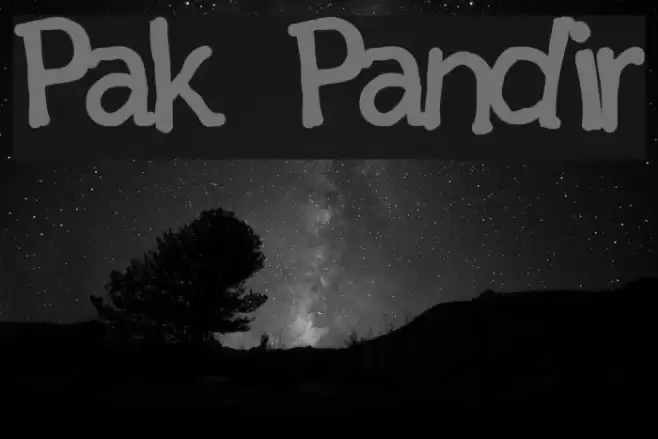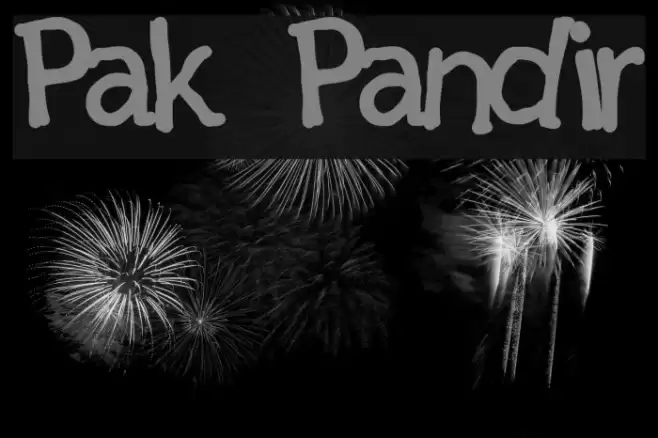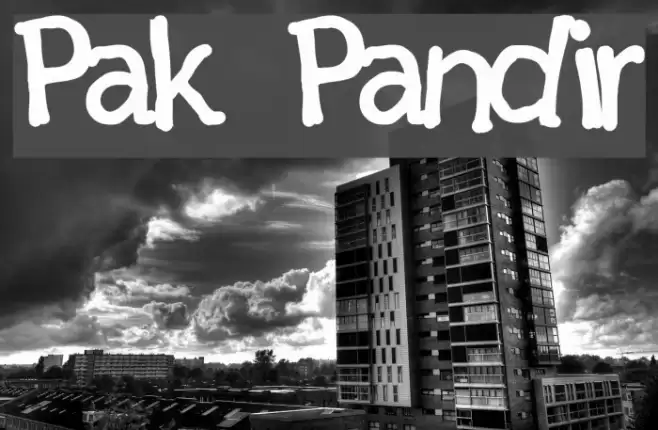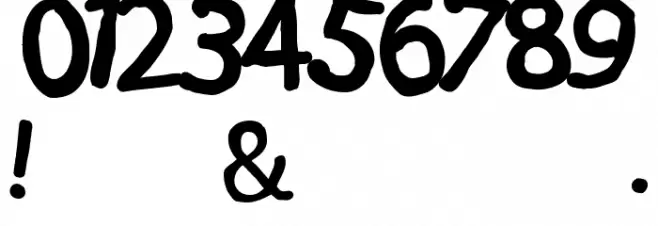
Pak Pandir Font
Pak Pandir Description
This font features a playful and informal style with a hand-drawn appearance. The letters have a slightly irregular shape, giving them a whimsical and friendly feel. The strokes are bold and rounded, contributing to a casual and approachable aesthetic. The uppercase and lowercase letters maintain a consistent style, with the uppercase being slightly larger and more pronounced. The numbers and special characters follow the same design principles, ensuring uniformity across the font. This font is ideal for projects that require a fun and lighthearted touch.
A playful, hand-drawn font with bold, rounded strokes and a whimsical style from Uncategorized fonts.
- Font: Pak Pandir
- Proposed Projects: Ideal for children's books, greeting cards, playful branding, and informal event invitations.
- Overall Style: Playful
- Use Case: Logos, Headlines, Informal Text